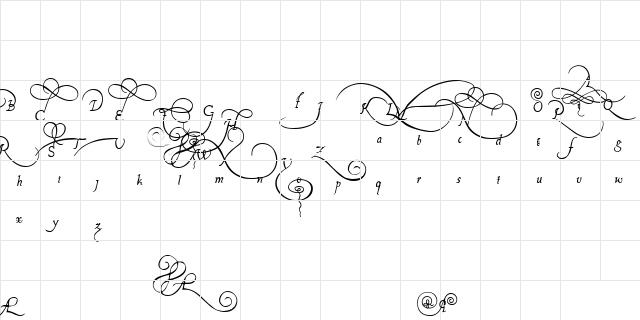
Platthand Demo Regular
Design Context for Platthand Demo Typeface
Platthand Demo brings a calligraphic fluidity to the page — its connecting strokes and expressive curves give it an unmistakably human quality.
Font Pairing: Combine Platthand Demo with a simple geometric sans for maximum contrast — the tension between flowing curves and clean structure is a classic typographic pairing.
Pro Tip: Use Platthand Demo for short runs of text — names, titles, or taglines. Extended body copy in script faces tires the eye quickly.